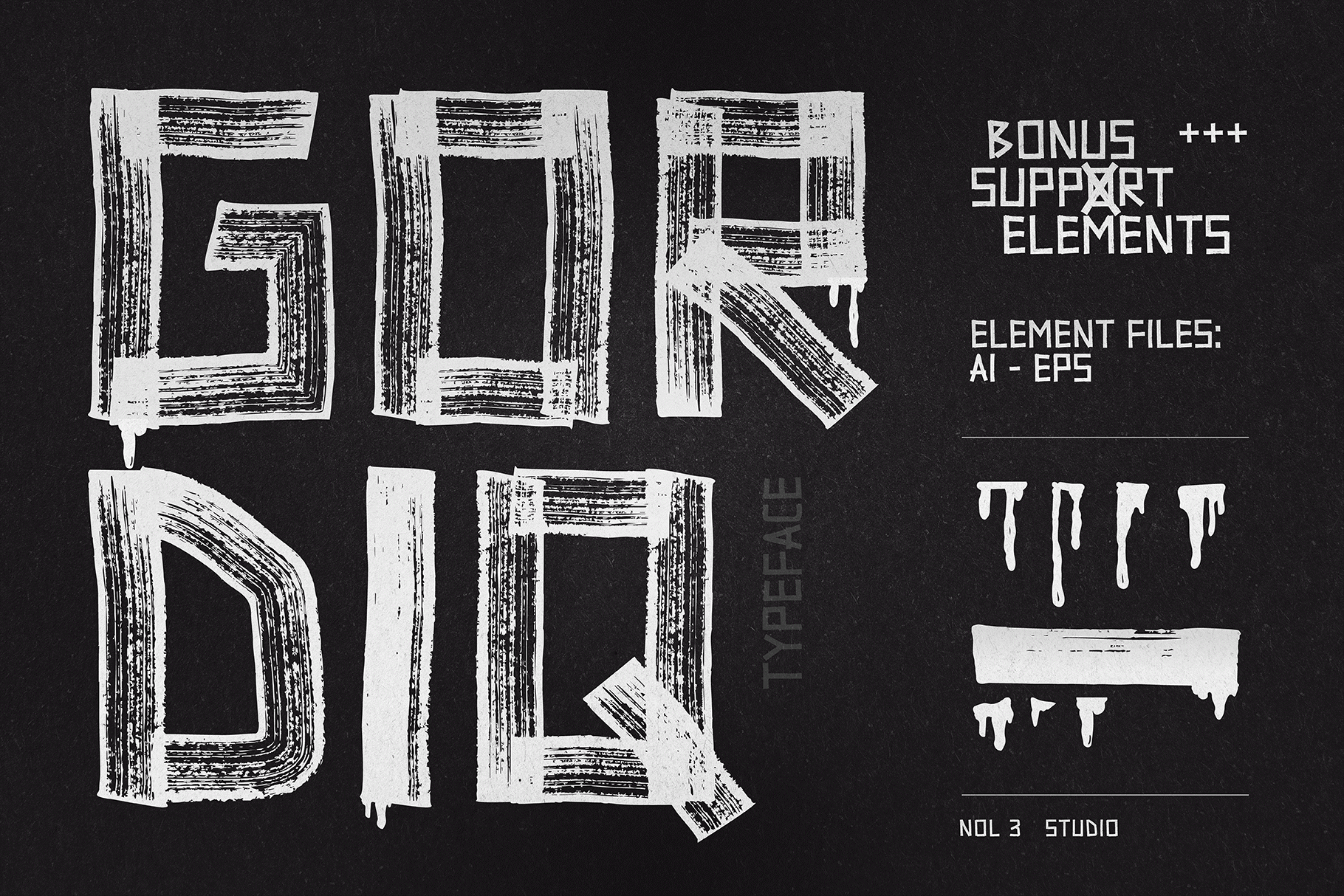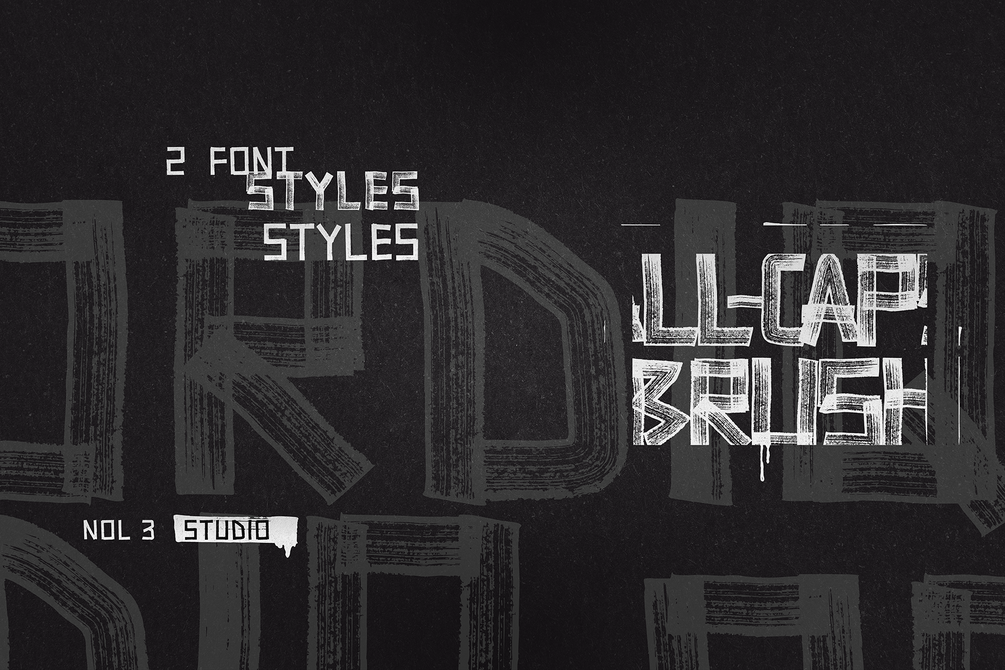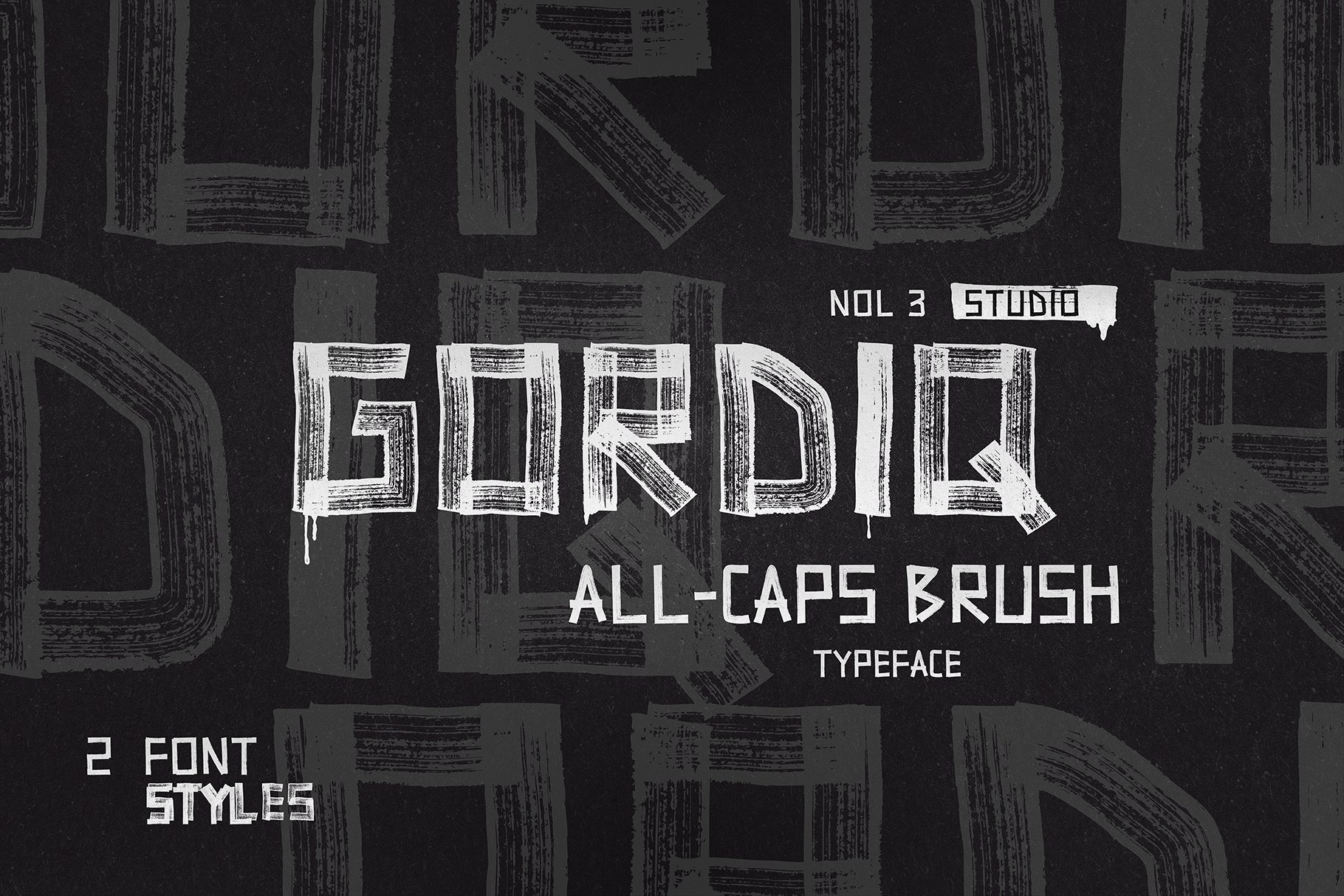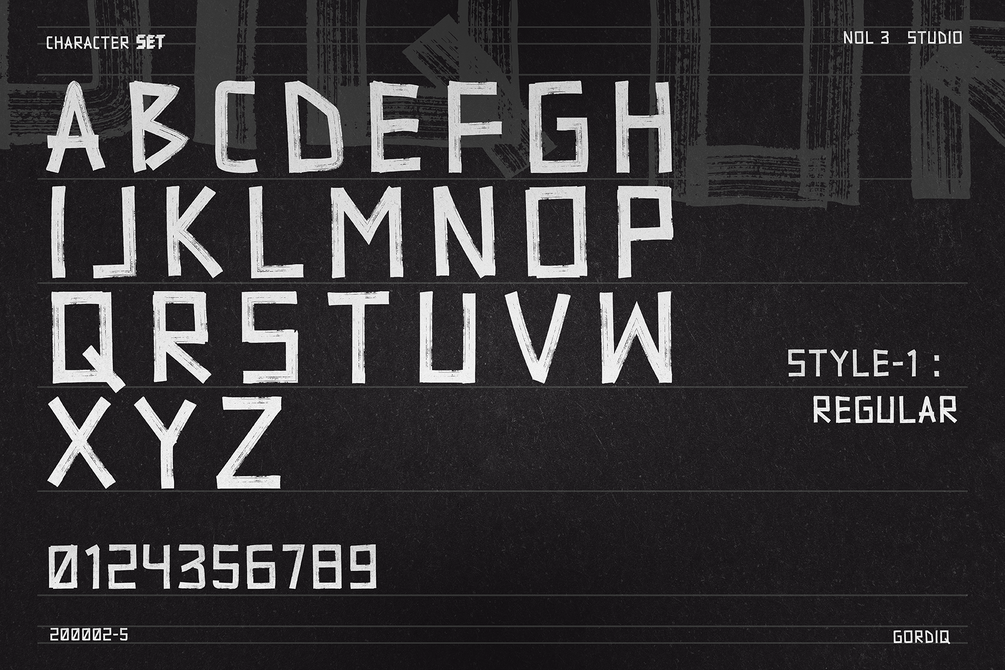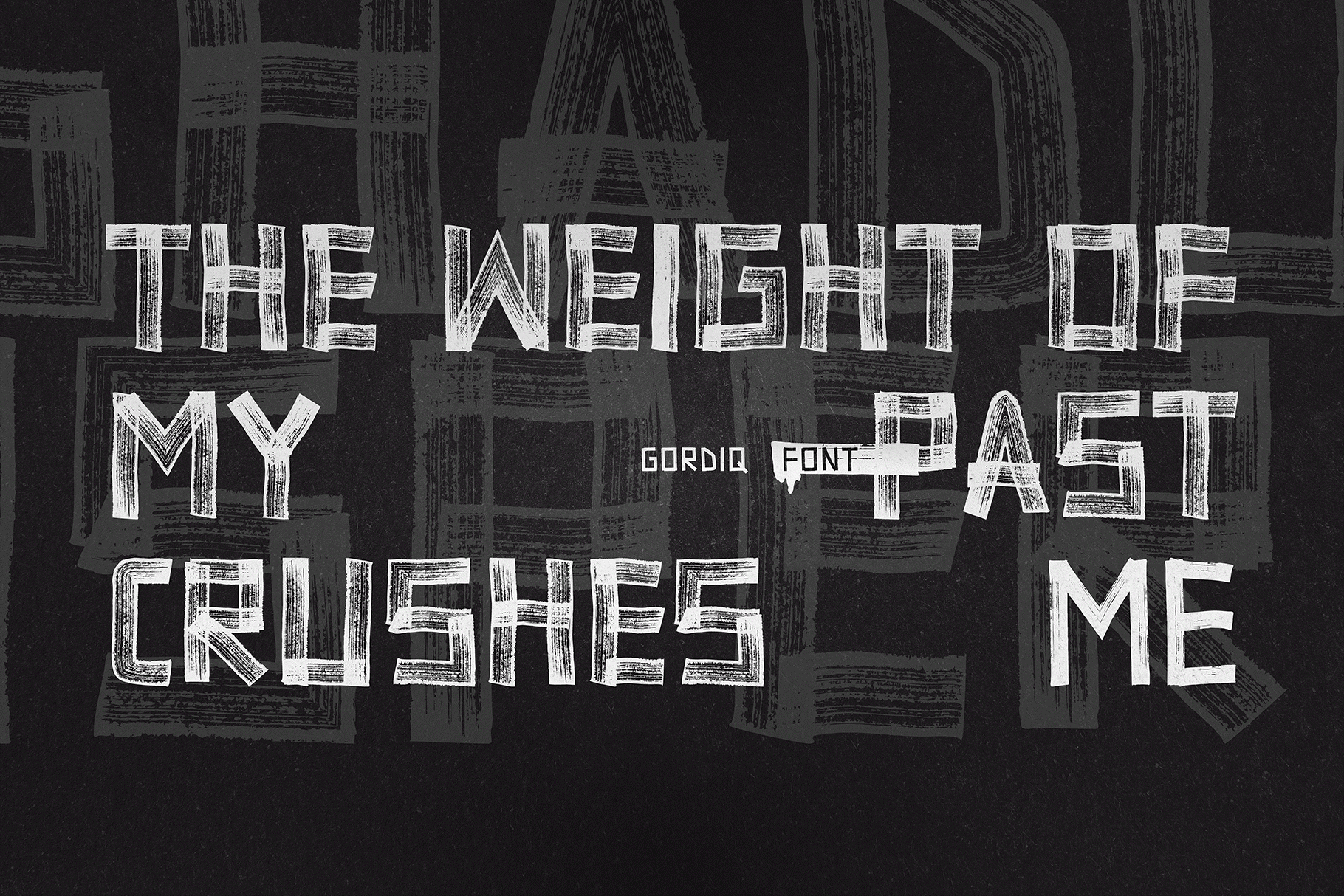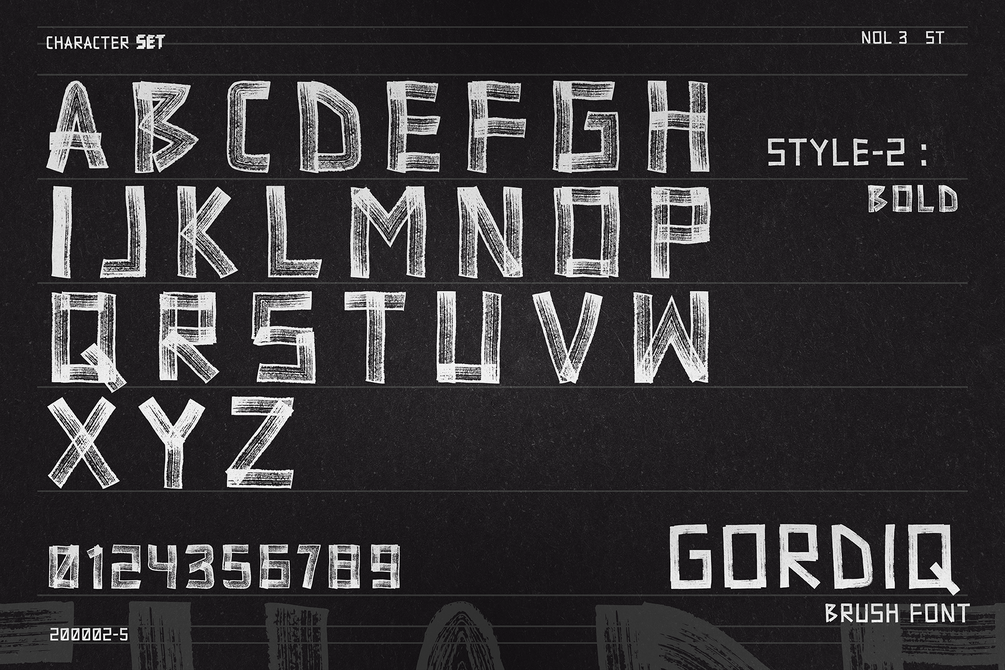
GORDIQ | ALLCAPS BRUSH FONT
GORDIQ is a texture roll-brush handwriting font that captures the essence of rough, raw handwritten text, making it an eye-catching choice for creative projects. With its all-caps design, GORDIQ enhances visibility and impact, while its unique texture adds depth and character. The font family includes two distinct styles regular and bold, GORDIQ brings a personal and expressive touch to your designs.
Key Features
• The Font Contains 200+ Glyphs
• ALLCAPS Character
• 2 Font Styles
• Numbers & Punctuation
• Multilingual Support
Bonus Element